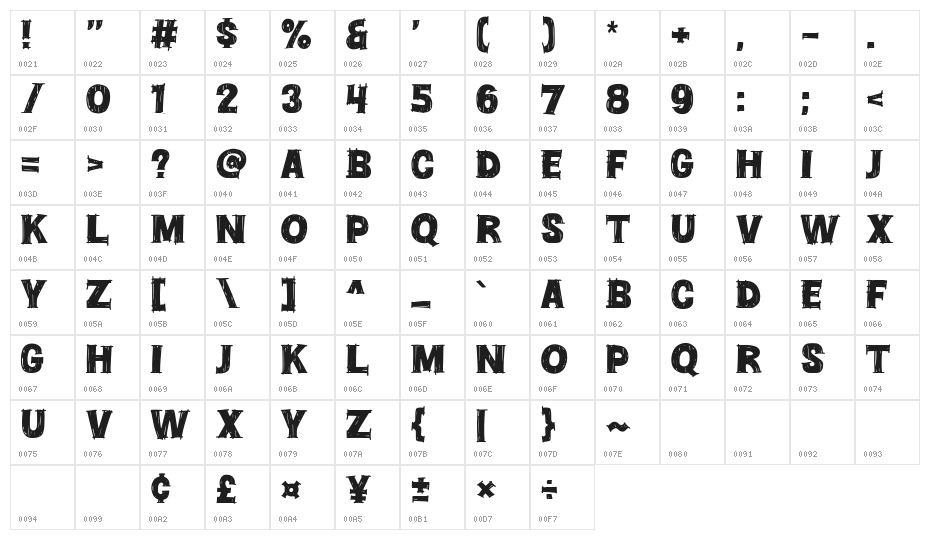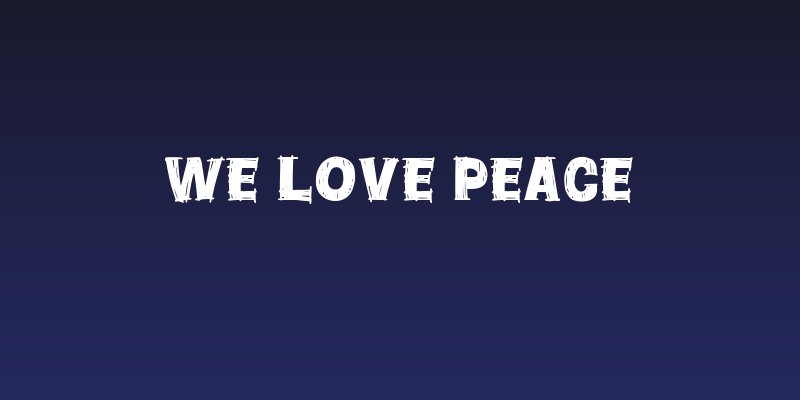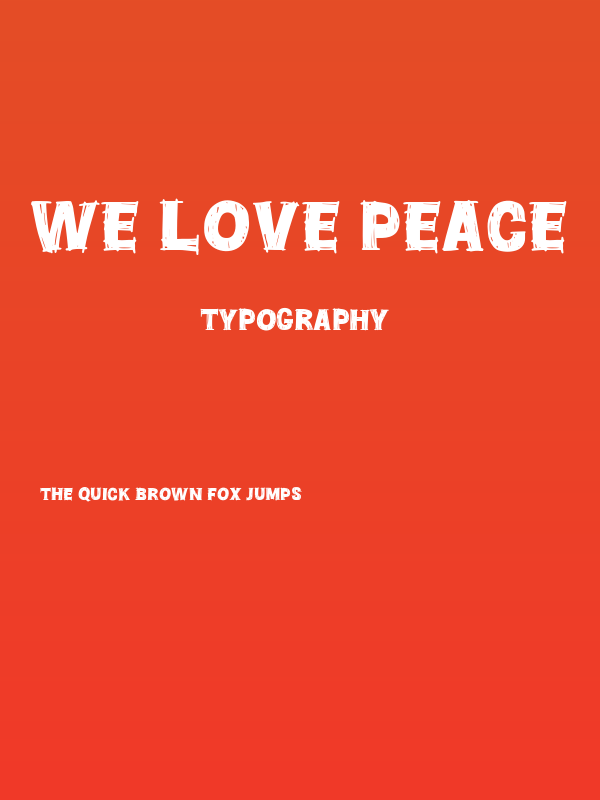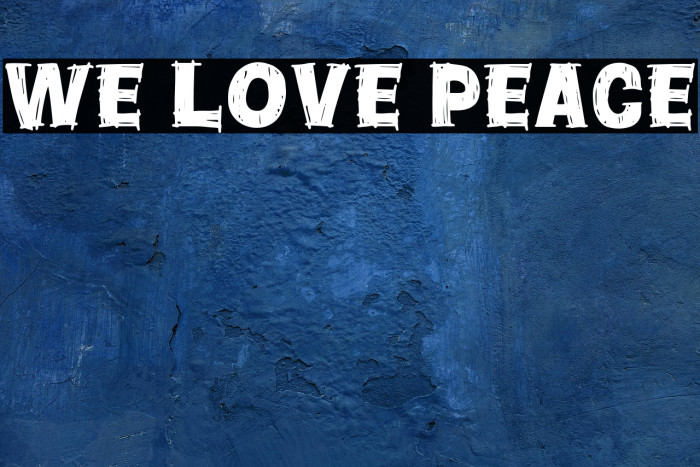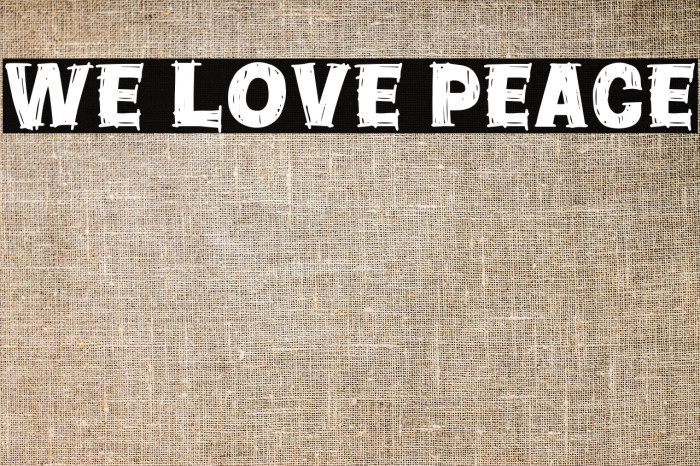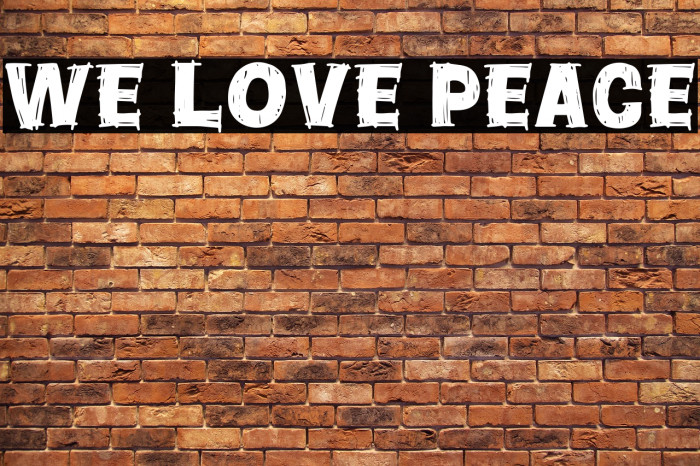
We Love Peace Font
We Love Peace Description
This font features a bold and dynamic style with a distressed, grunge-like texture. The characters are thick and robust, giving a strong visual impact. The irregular edges and rough strokes add a sense of movement and energy, making it ideal for eye-catching designs. The uppercase and lowercase letters maintain a consistent style, while the numerals and special characters complement the overall aesthetic. This font is perfect for projects that require a bold statement and a touch of edginess.
| Proposed Projects | Ideal for posters, album covers, streetwear branding, and any design needing a bold, edgy look. |